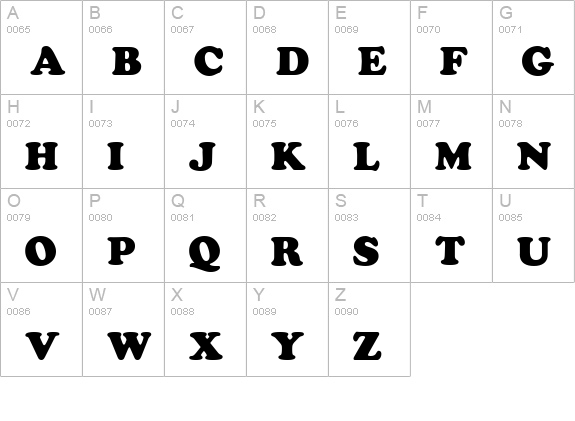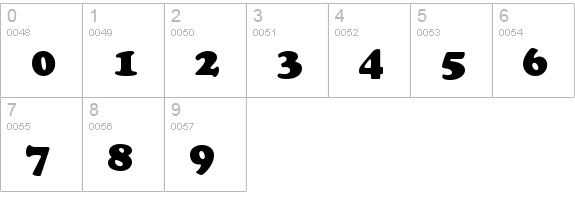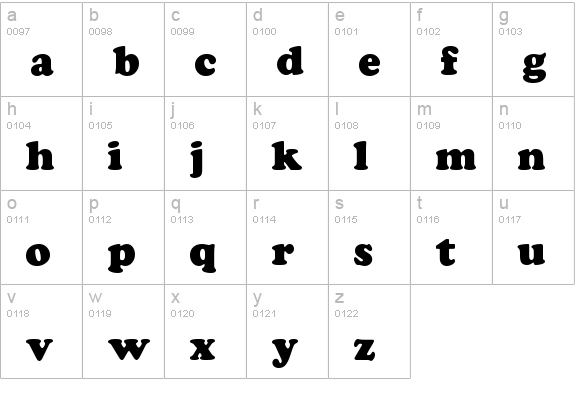
QTKooper Regular Font Details
QTKooper Regular is the standard, neutral variant in the QTKooper typeface family \xE2\x80\x94 well suited to general body text, paragraphs, and standard typographic work.
QTKooper Regular font is a stunning display font that exudes a perfect balance between elegance and modernity. With its clean and crisp lines, this font is sure to make any design project shine. The QTKooper Regular font is perfect for a wide range of design purposes, from logos and branding to headlines and advertising. Its versatility allows it to be used in both professional and personal projects, adding a touch of sophistication to any visual creation. One of the best features of the QTKooper Regular font is that it is free! Yes, you read that right. This amazing font is freely available to download at FontsMarket.com. You no longer have to worry about breaking your budget to have access to a high-quality font that will elevate your designs. Whether you're a professional graphic designer or an enthusiastic hobbyist, the QTKooper Regular font is a must-have addition to your font collection. Its sleek and stylish appearance, combined with its ease of use, makes it an excellent choice for any project. So why wait? Head over to FontsMarket.com now and download the QTKooper Regular font for free. Don't miss out on this incredible opportunity to enhance your designs with a font that is not only visually appealing but also easily accessible.